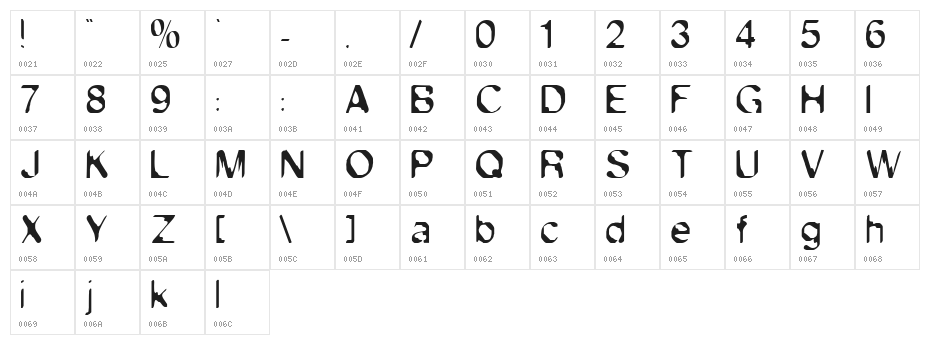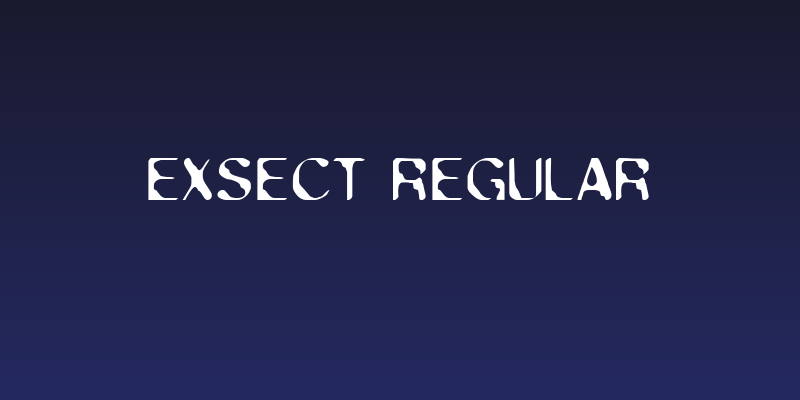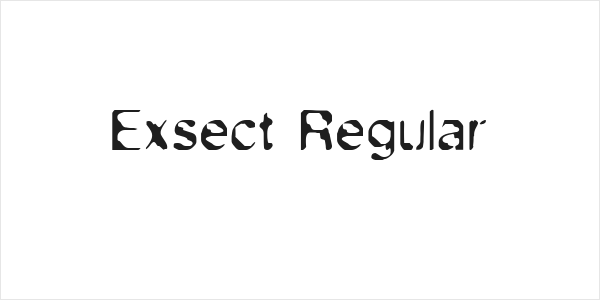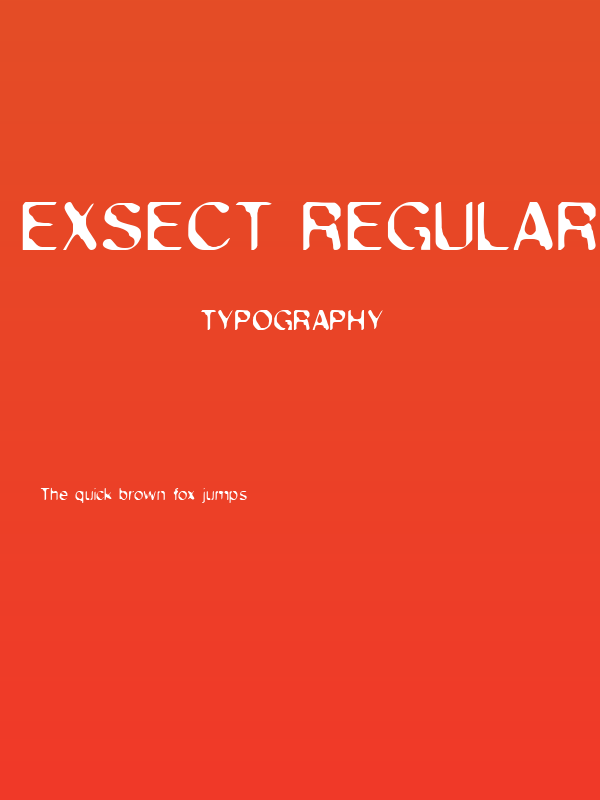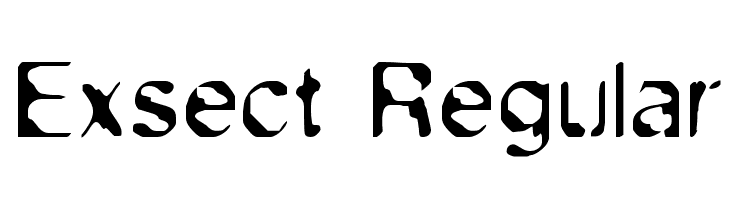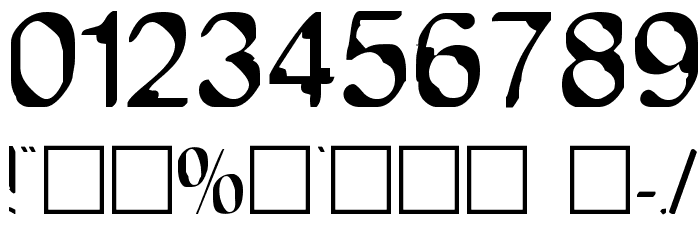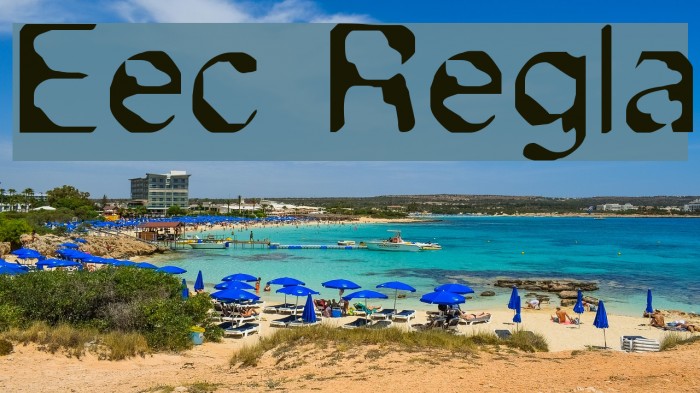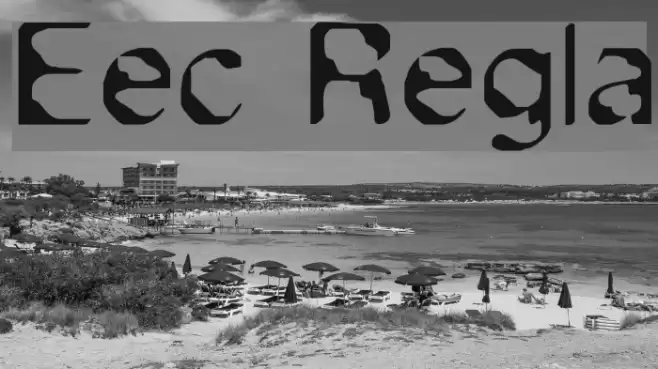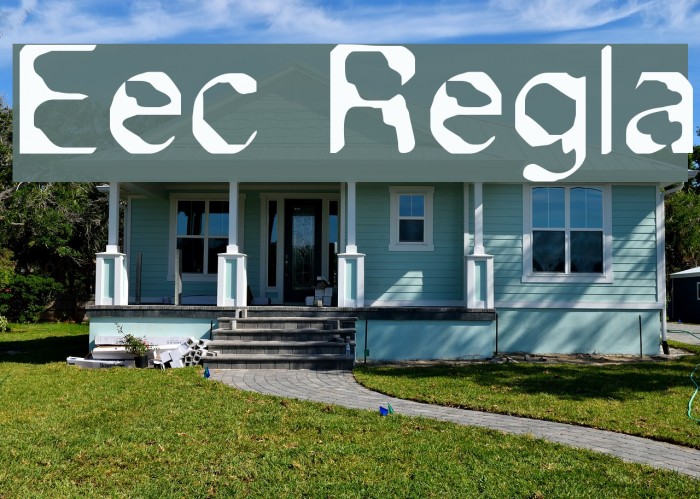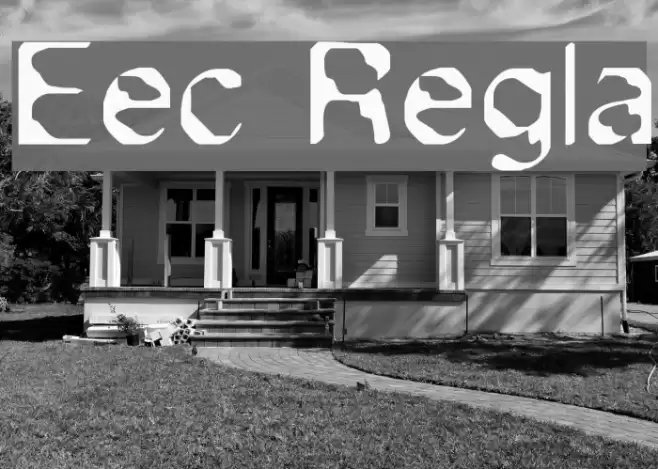
Exsect Regular Font
Exsect Regular Description
This font features a unique and artistic design with irregular, jagged edges that give it a distinctive, edgy appearance. The characters are bold and have a slightly distressed look, making them stand out with a modern, grunge aesthetic. The uppercase and lowercase letters maintain a consistent style, while the numbers and special characters complement the overall design. The font's unconventional style makes it suitable for creative and bold projects, where a strong visual impact is desired.
| Overall Style | Modern, Grunge |
| Proposed Projects | Ideal for album covers, posters, branding for edgy products, and creative digital artwork. |